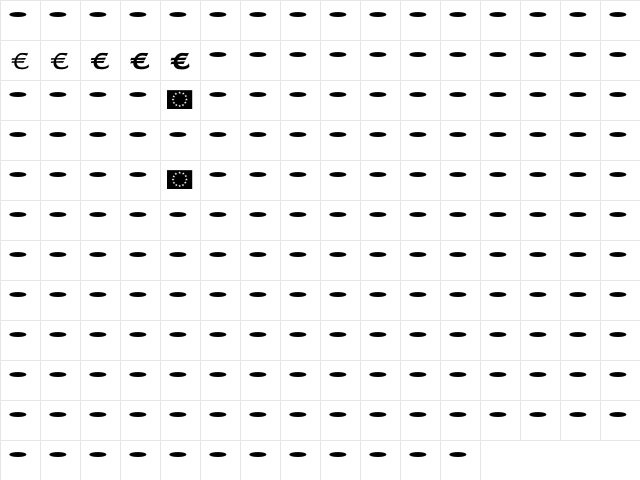
Clair Euro Font Preview
Clair Euro
Clair Euro Font Details
Design Context for Clair Typeface
Clair offers clean, dependable letterforms without strong stylistic allegiance, making it a practical choice for designers who need flexibility.
Pro Tip: Pair Clair with a font of contrasting weight or personality to build a more expressive typographic hierarchy.